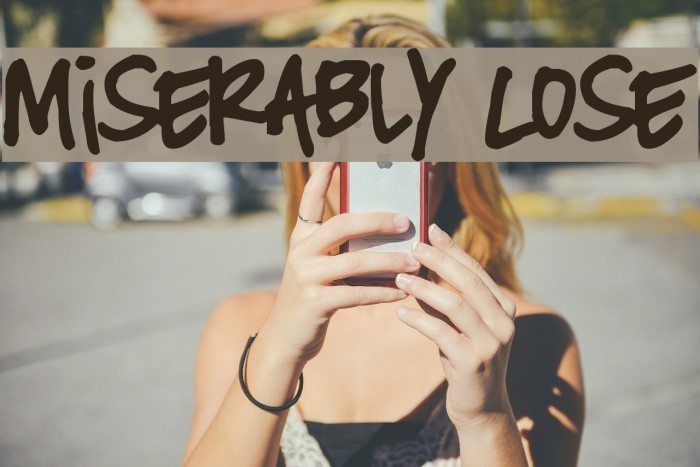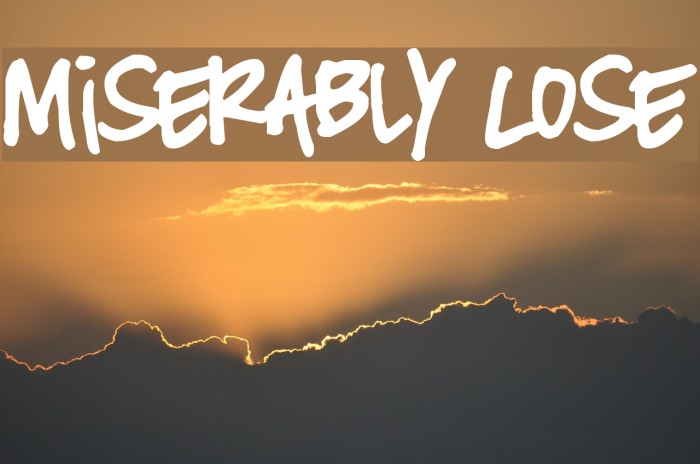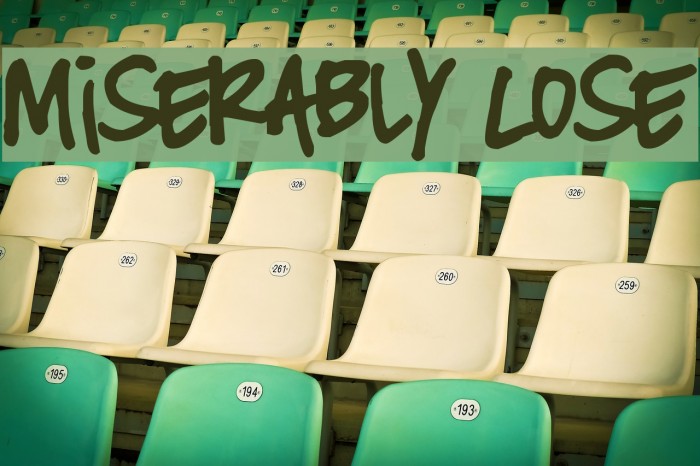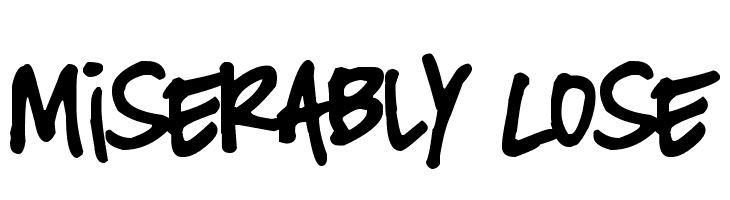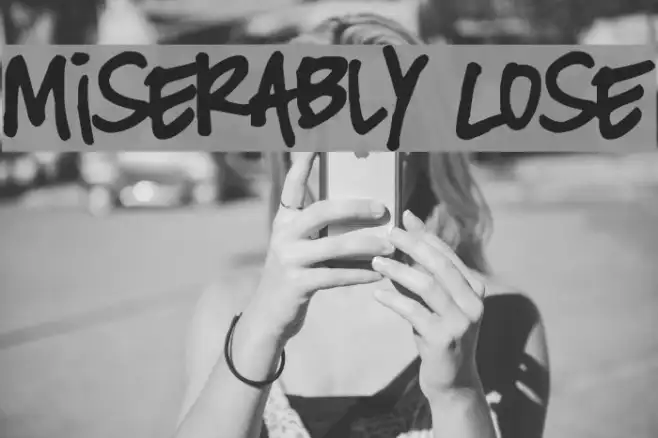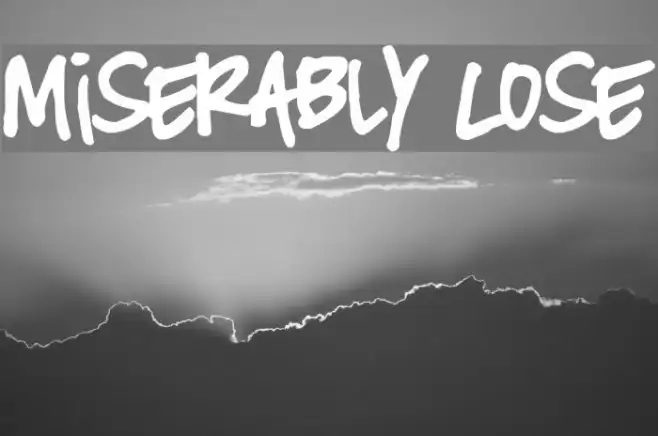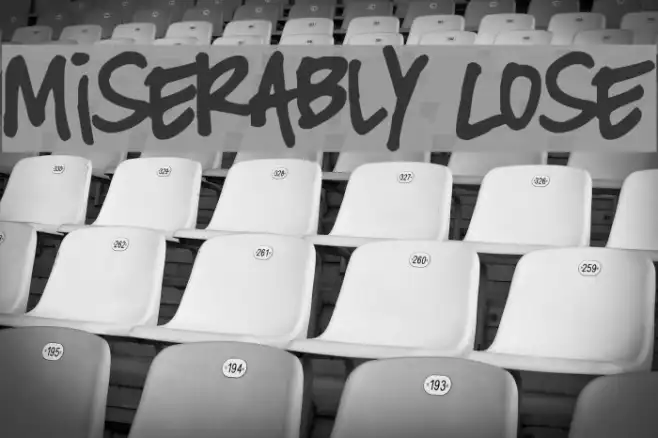
Miserably Lose Font
This font features a bold, expressive style with a handwritten appearance. The letters are dynamic and slightly irregular, giving it a lively and energetic feel. The strokes are thick and consistent, contributing to its boldness. The uppercase and lowercase letters maintain a cohesive look, with a playful yet legible design. Numbers and special characters follow the same aesthetic, ensuring uniformity across all glyphs. This font's unique style makes it stand out, perfect for projects that require a personal touch or a creative flair.
A bold, handwritten font with an expressive and dynamic style.
- Proposed Projects: Ideal for creative projects such as posters, invitations, branding, and social media graphics where a personal and artistic touch is desired.